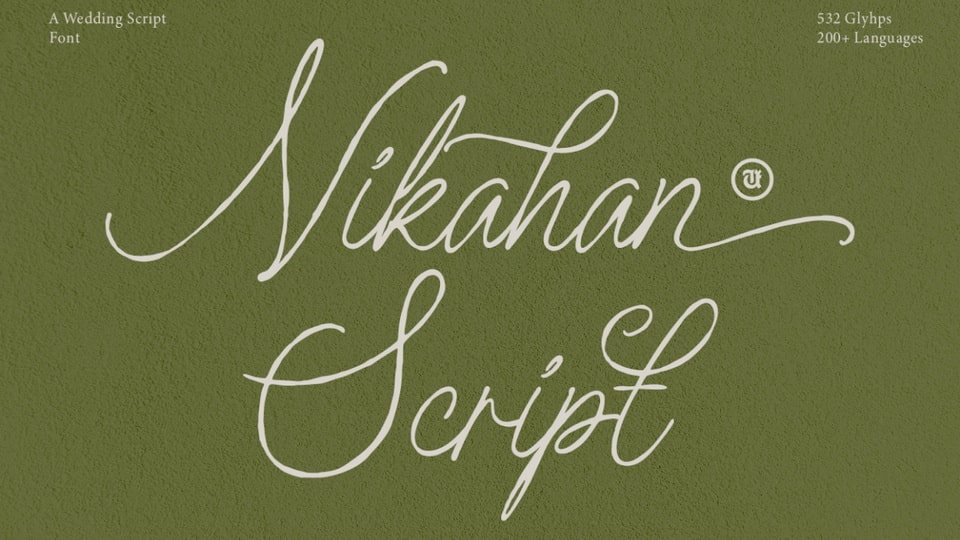
Download UT Nikahan Script font, a beautiful wedding typeface with all the elegance of calligraphy with the flowing lines and fancy details.
Designer: Universitype Foundry